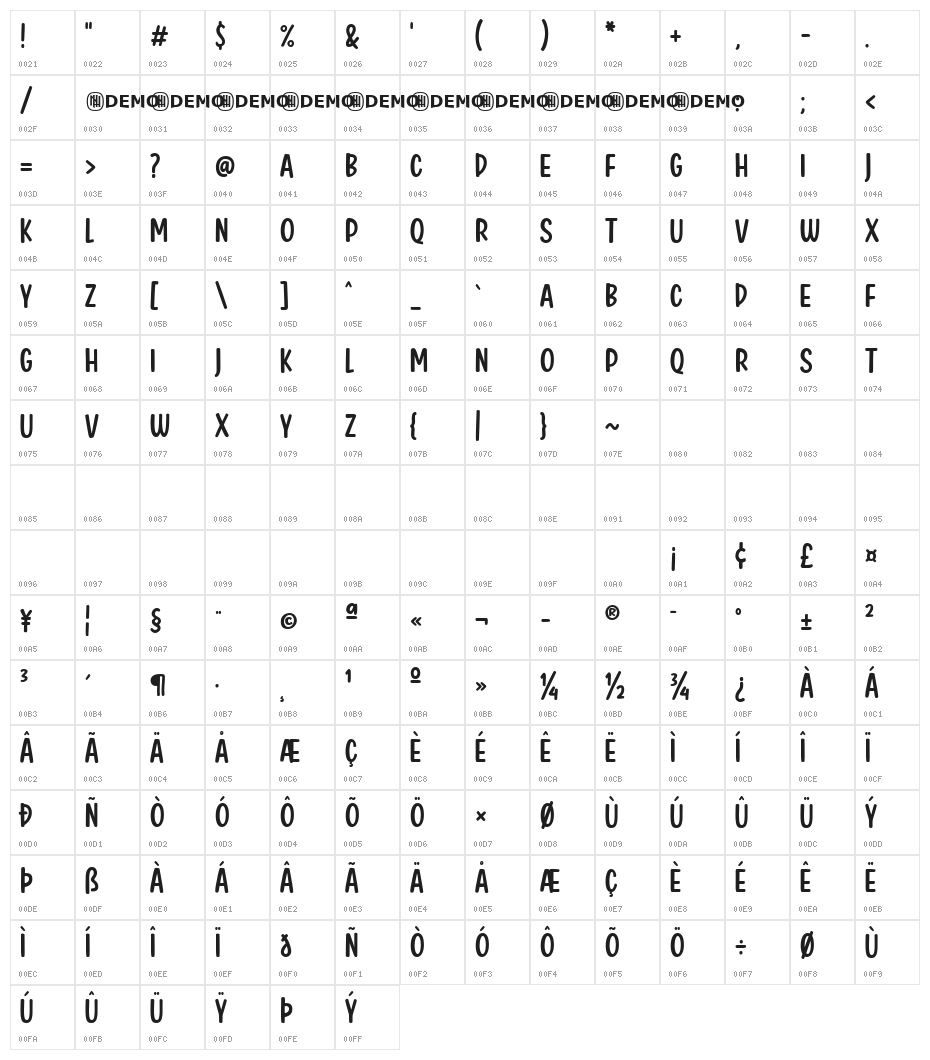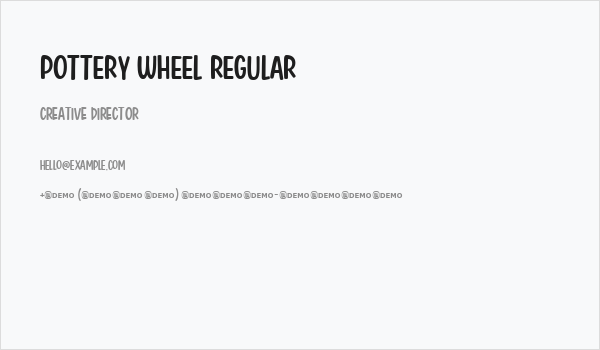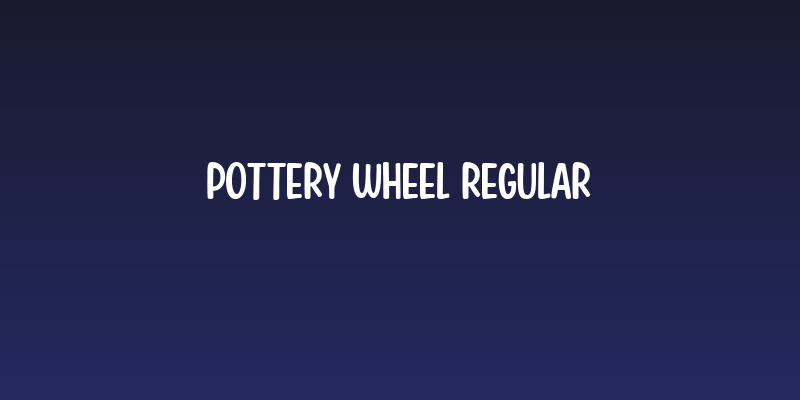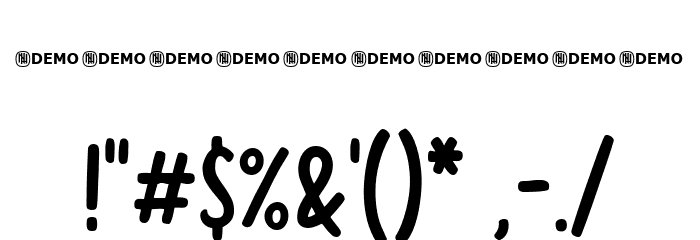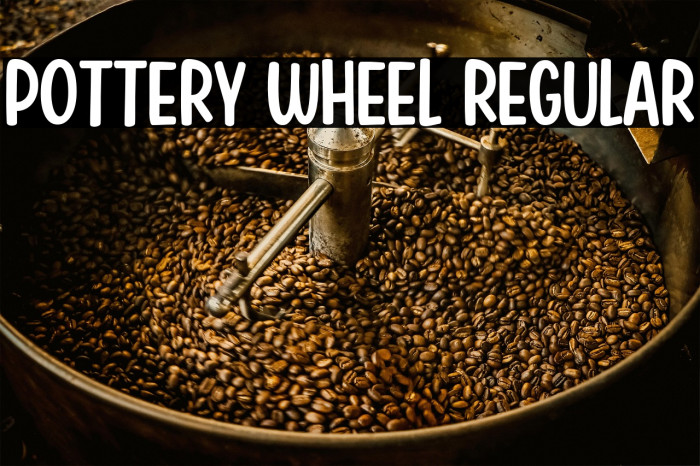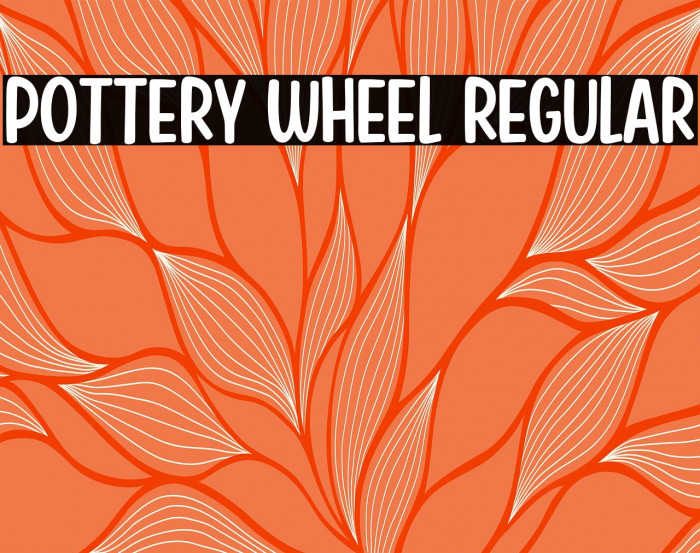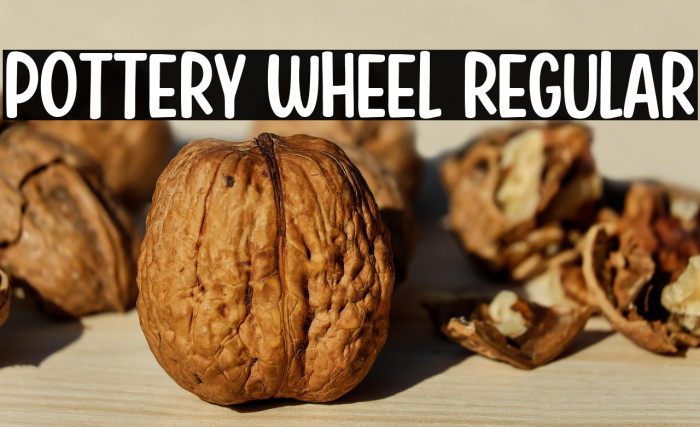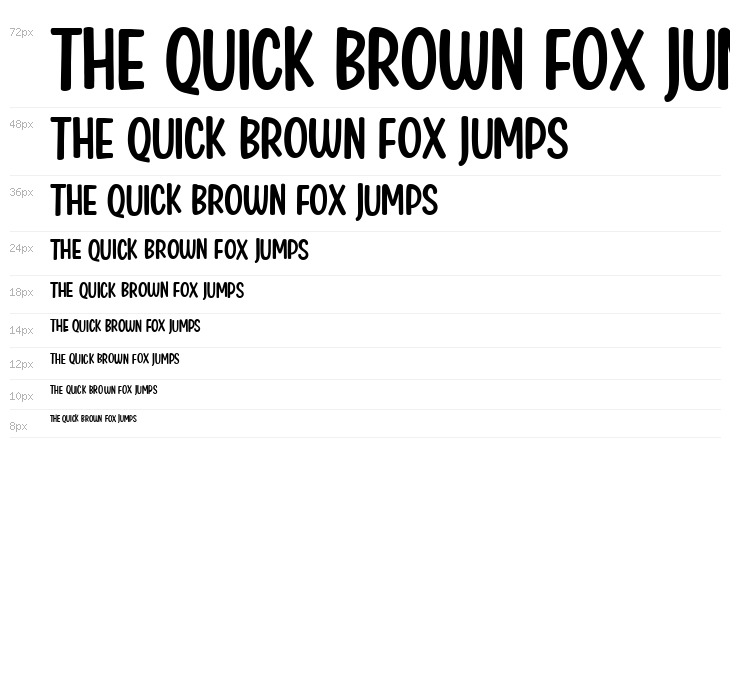
Pottery Wheel Regular Font
Pottery Wheel Regular Description
This font features a playful and bold handwritten style, characterized by its rounded and slightly irregular letterforms. The strokes are thick and consistent, giving it a strong presence on the page. The uppercase and lowercase letters maintain a uniform height, contributing to a cohesive look. The font includes a full set of uppercase and lowercase letters, numbers, and a variety of special characters, making it versatile for different design needs. Its informal and friendly appearance makes it ideal for projects that require a personal touch.
| Proposed Projects | Ideal for children's books, greeting cards, playful branding, and social media graphics. |